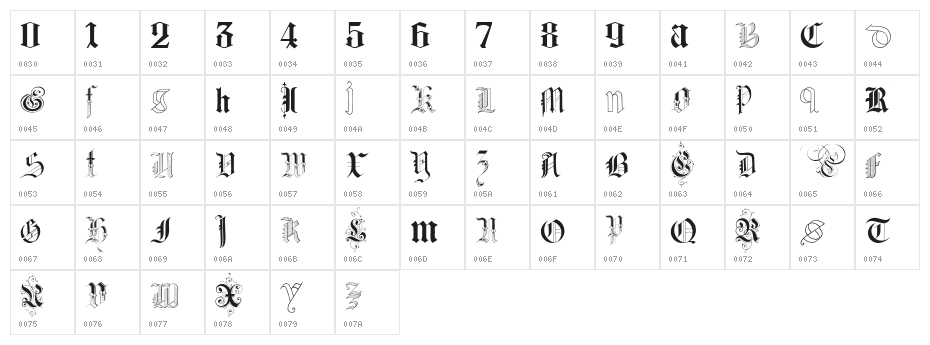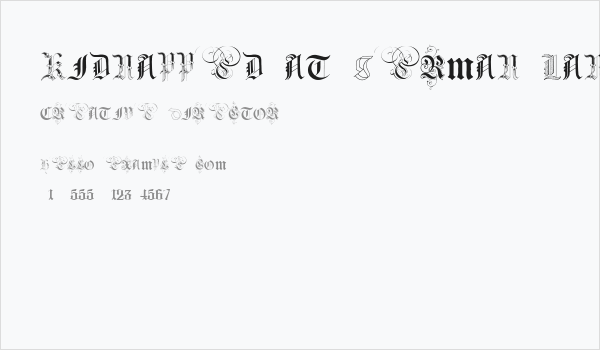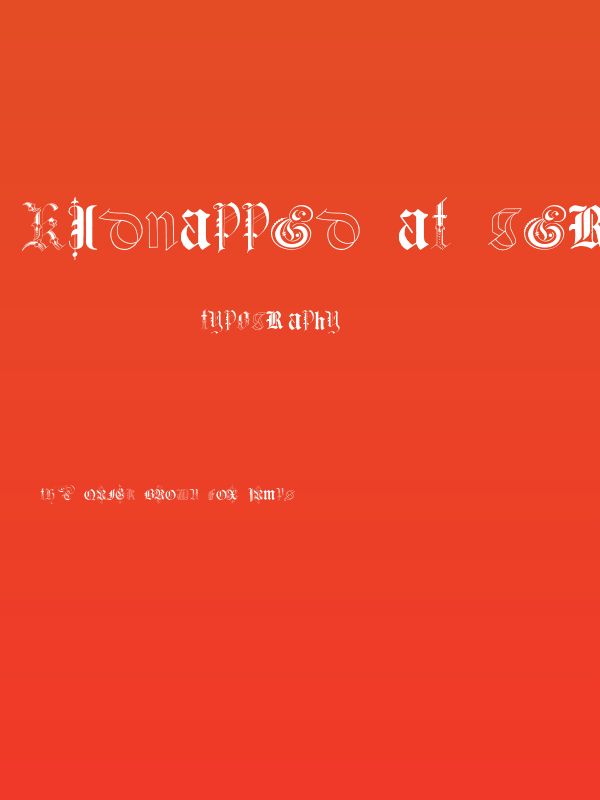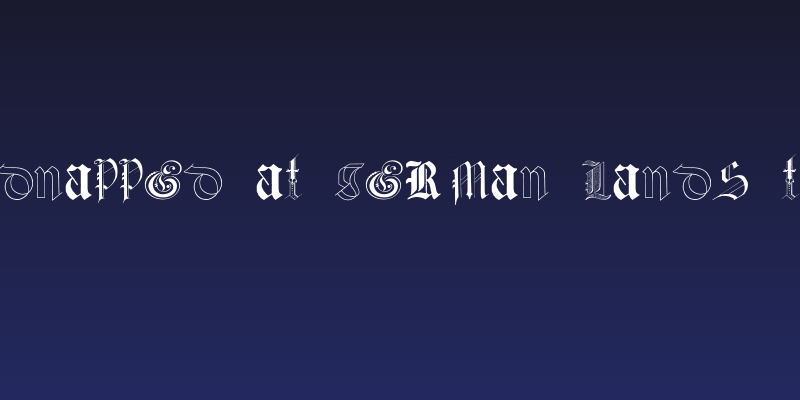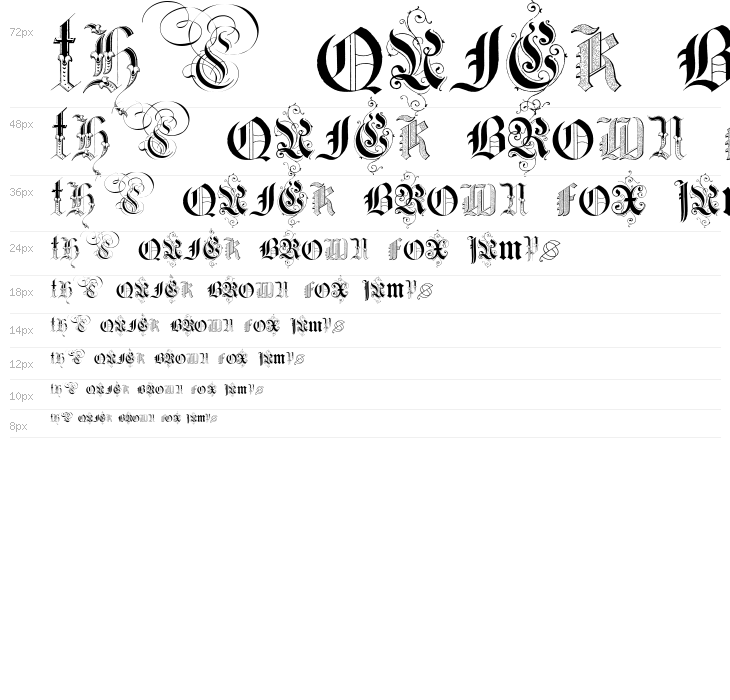
Kidnapped at German Lands Two Font
Kidnapped at German Lands Two Description
This font is a striking example of Blackletter style, characterized by its intricate and ornate design. The uppercase letters feature elaborate flourishes and sharp, angular lines, giving them a dramatic and historical appearance. The lowercase letters maintain the same level of detail, with some characters incorporating additional decorative elements. The numbers are bold and consistent with the overall Gothic aesthetic, ensuring they stand out while maintaining harmony with the alphabet. This font's unique style is reminiscent of medieval manuscripts and traditional German typography, making it ideal for projects that require a touch of historical elegance and sophistication.
| Use Case | Logos, Headlines, Decorative purposes |
| Proposed Projects | Ideal for historical documents, wedding invitations, book covers, posters, and branding that requires a vintage or Gothic touch. |